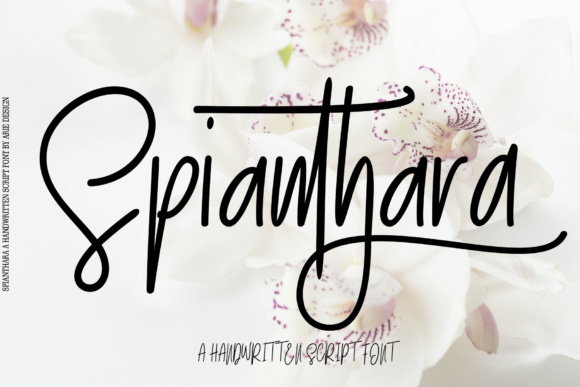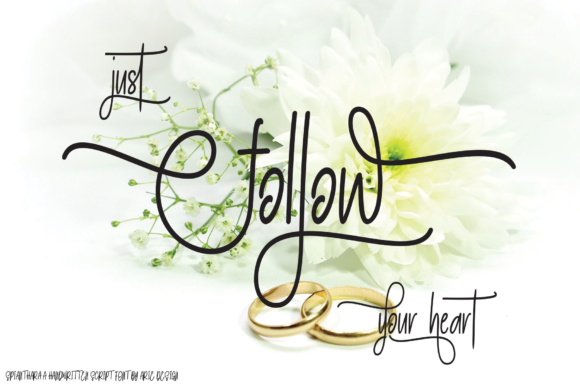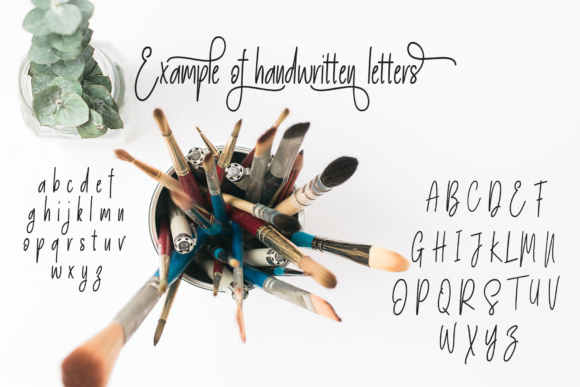
About Spianthara Script Font
If you are looking to add a touch of elegance to your current project do not miss this one, named Spianthara Script. You’ll get yourself a remarkable modern script font. Spianthara is furnished with fine lines which makes it perfect for use for many purposes such as titles, signatures, logos, correspondences, wedding invitations, letterheads and much more!